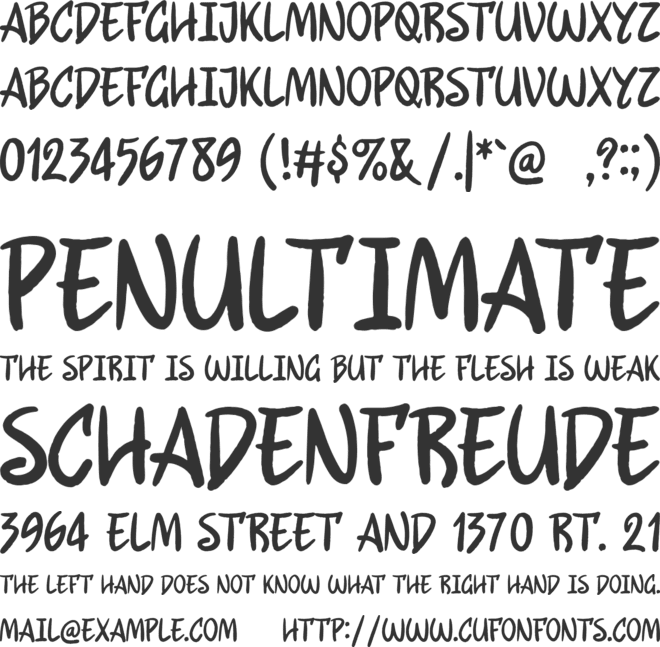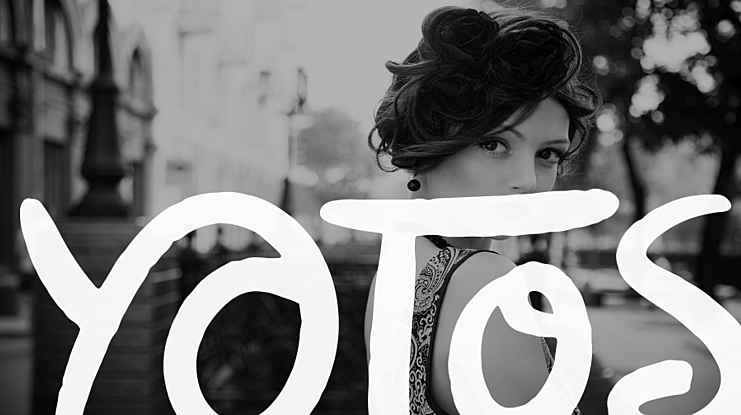
Yotos Font
PRESENTING YOTOS FONT
An enchanting and whimsical font created to bring a sprinkle of joy to your endeavors. Whether you're crafting warm-hearted notes, curating eye-catching posters, or infusing your digital creations with a touch of character, Yotos Font is here to ignite your creativity.